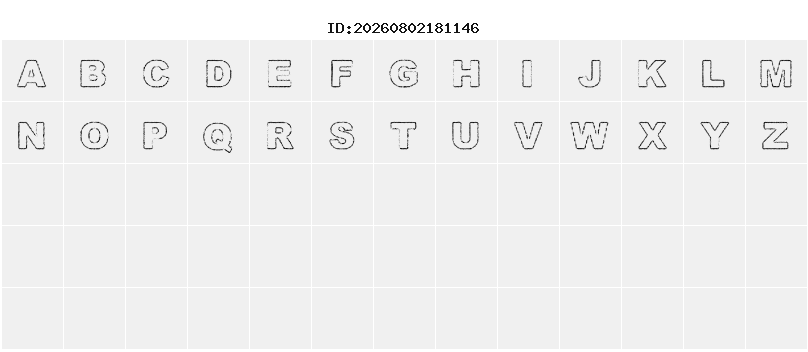
• Font Name: November Sixteenth
About November Sixteenth.ttf
November Sixteenth.ttf is a modern, elegant sans-serif font designed for ultimate readability and visual harmony. Perfect for branding, headlines, web design, and print materials.